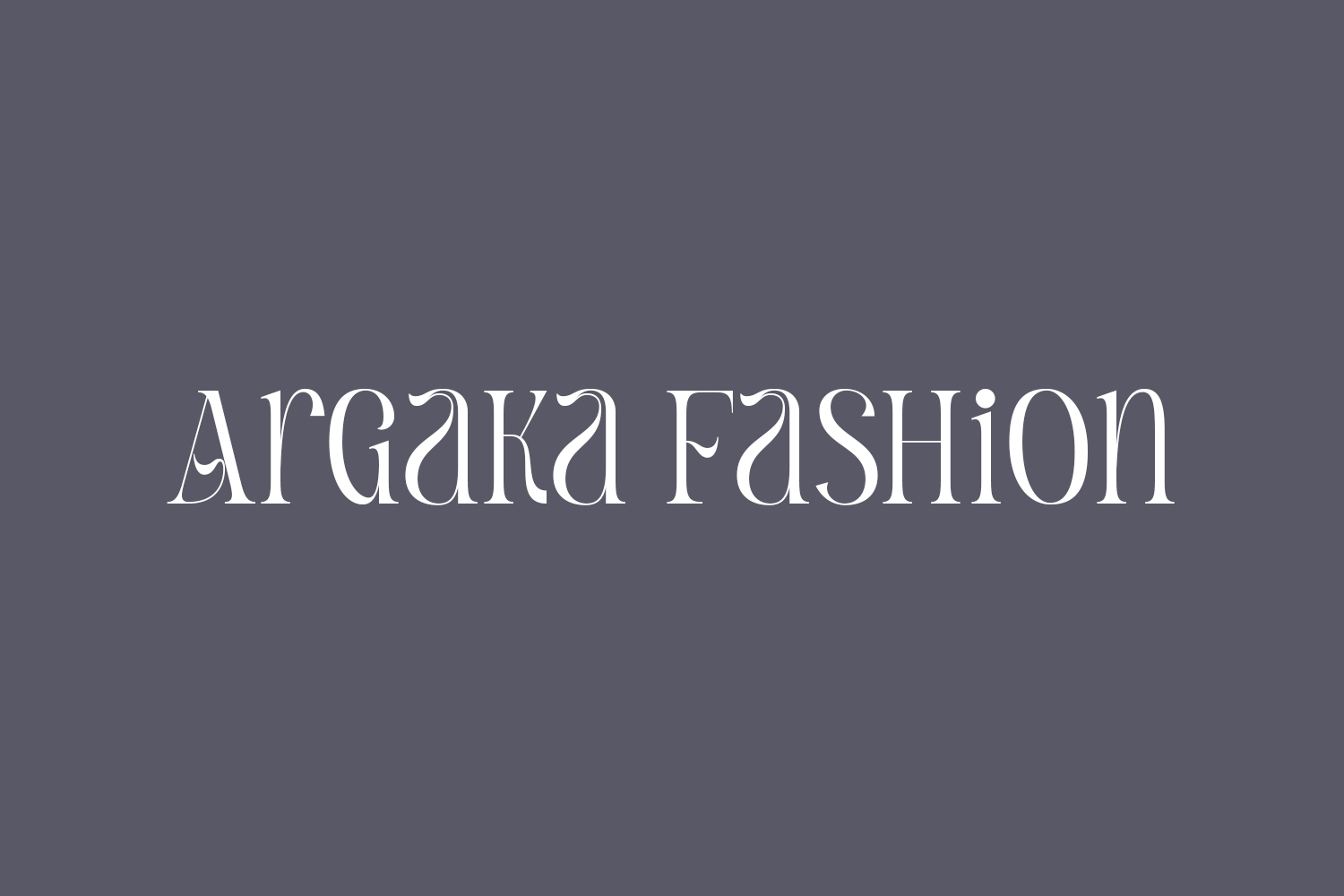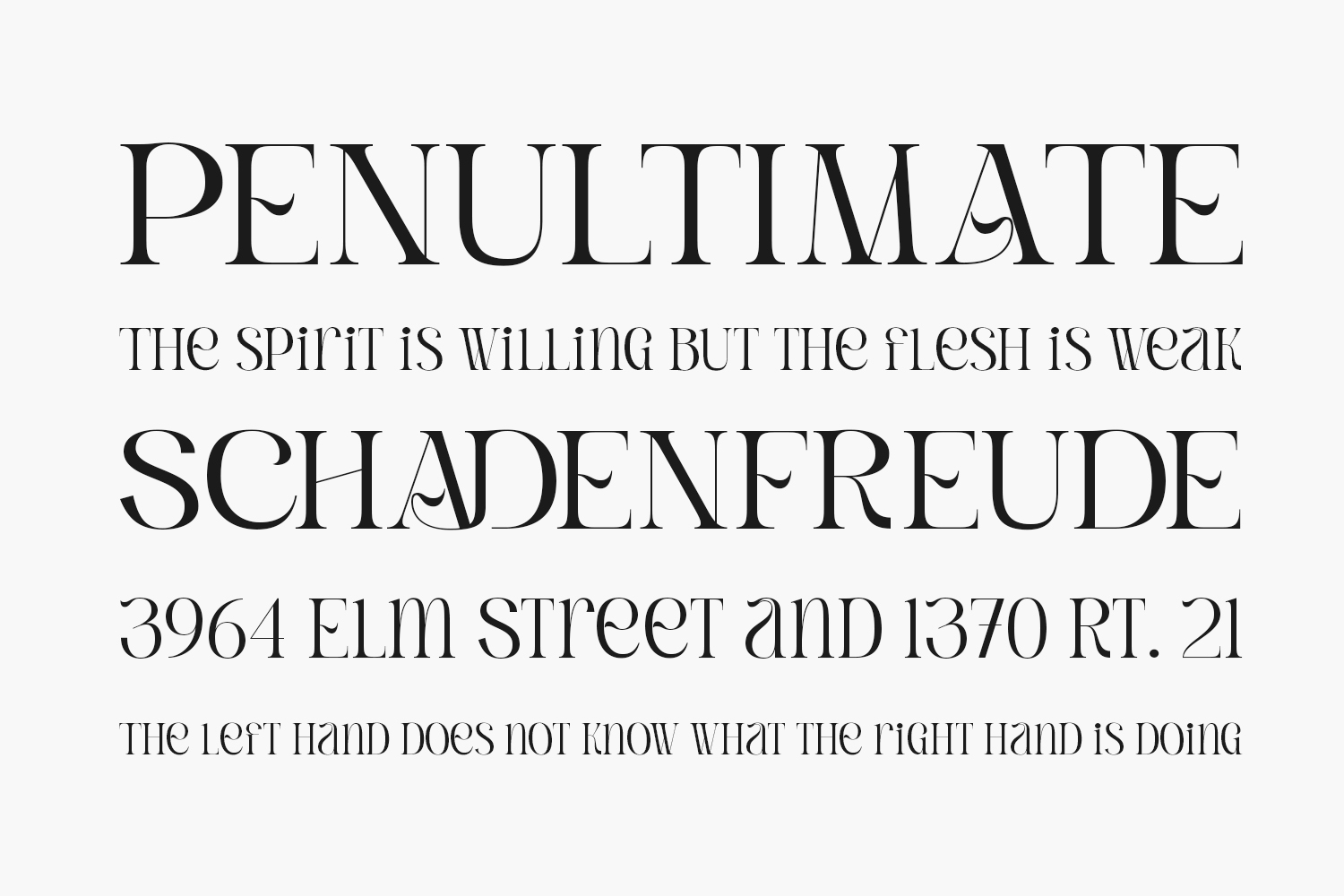
Experience the elegance of Argaka Fashion Free Font, a meticulously crafted serif font that exudes a delicate and classy aesthetic. With a perfect balance between thin and thick strokes, this font offers a diverse range of variations to elevate the allure of your projects. Embrace the captivating beauty of Argaka Fashion and elevate your creative endeavors. Argaka Fashion Free Font is free for personal use only. Please purchase the full version for commercial use.